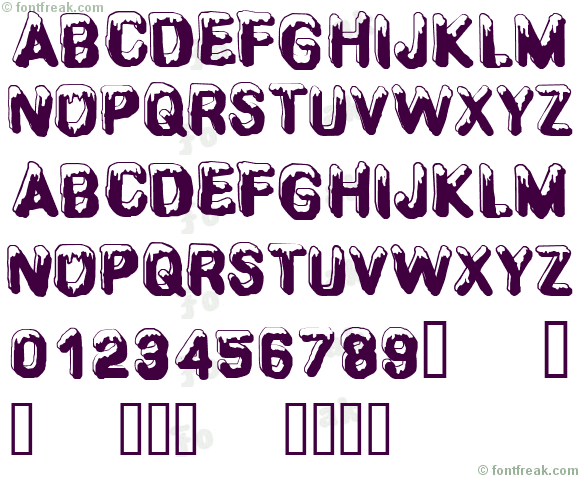
CF SnowBall Regular
About CF SnowBall Regular
CF SnowBall Regular is a playful display font from Cloutierfontes that captures the whimsy and joy of winter. This font is characterized by its unique, rounded letterforms that feature a charming, snow-covered effect, giving it a delightful, handwritten feel. The stroke weight is consistent, while the rounded edges and gentle curves add a soft, friendly aesthetic. The spacing is balanced, making it easy to read while still maintaining a fun, casual vibe.
Ideal for various creative applications, CF SnowBall Regular shines in contexts where a lighthearted touch is desired. It is perfect for holiday-themed invitations, bringing a festive spirit to wedding invites or seasonal events. This font also makes an excellent choice for children's book titles, adding an engaging element to the cover design. Restaurant menus during the winter season can benefit from its inviting appearance, making the dining experience feel warm and cozy. Additionally, CF SnowBall Regular can be effectively used in promotional materials for winter events, such as festivals or sales.
The target audience for this font includes graphic designers looking to add a whimsical flair to their projects, small business owners aiming to create a friendly brand image, and content creators who want to evoke a sense of joy and warmth in their work.
What sets CF SnowBall Regular apart is its ability to convey fun and creativity while remaining versatile for various uses. This font invites users to express their ideas in a way that feels both approachable and visually engaging. For those seeking a unique and cheerful typeface, the CF SnowBall Regular font free download is an excellent addition to any designer's toolkit.